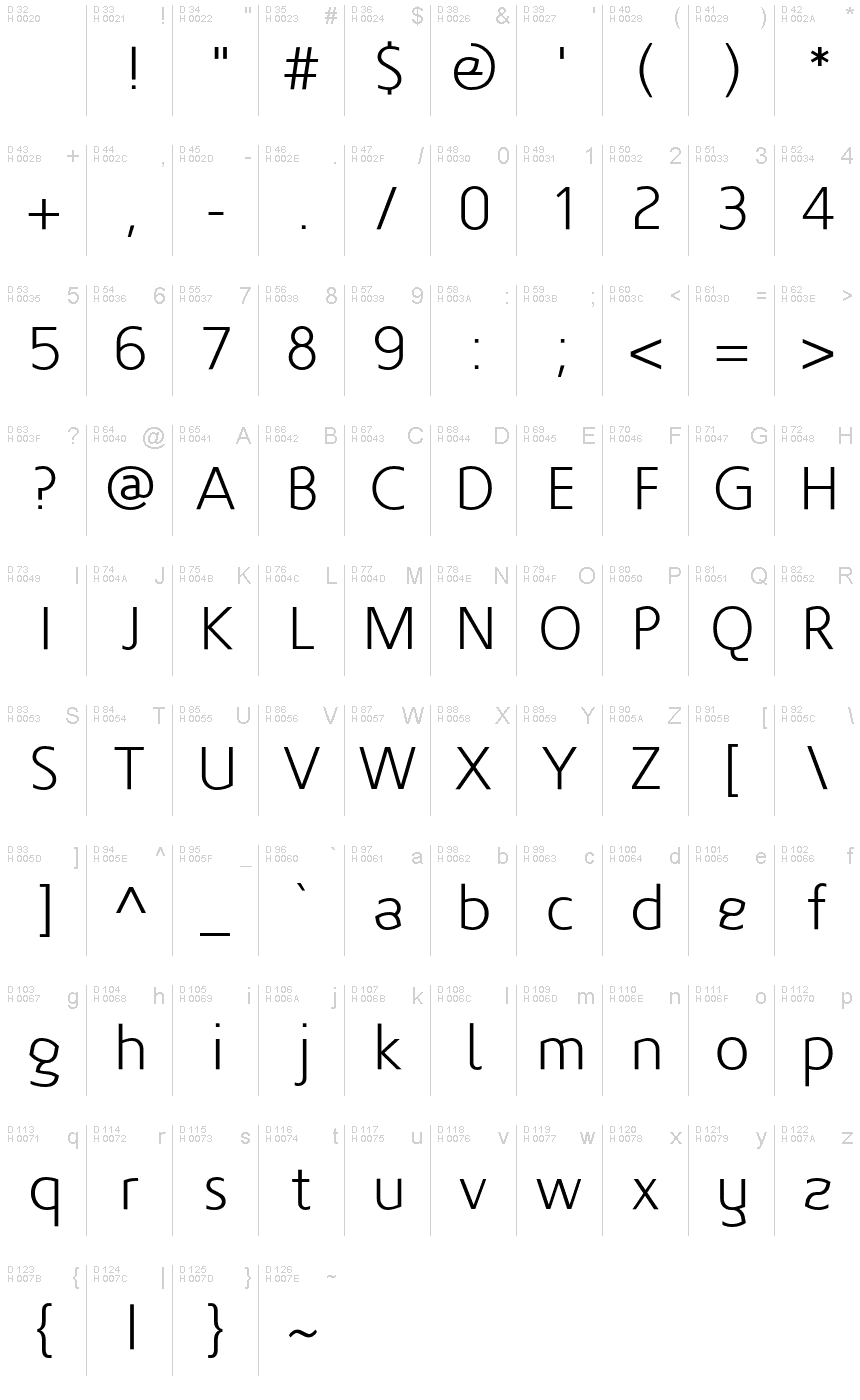
FortheloveoffontsLightA
For the Love of Fonts Light Alternate is a stunning sans serif typeface designed by Peridot Kitchen-Sink. With its semi-light weight, this font is perfect for projects that require a modern and elegant touch. Its clean lines and simple design make it versatile and suitable for a wide range of creative projects, from branding to editorial design. Use it for headlines, subheadings, or body text to add a touch of sophistication to your work. Whether you're designing logos or creating marketing materials, For the Love of Fonts Light Alternate will help you achieve a professional look that stands out from the crowd.